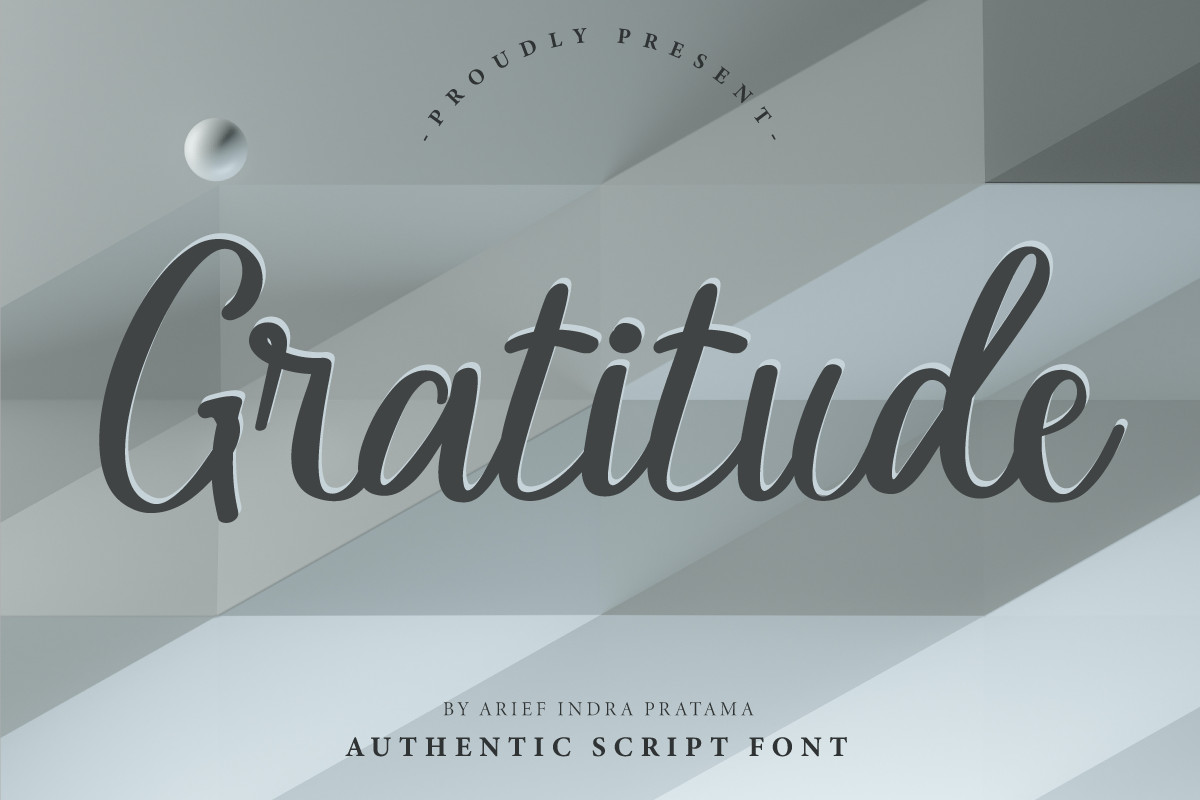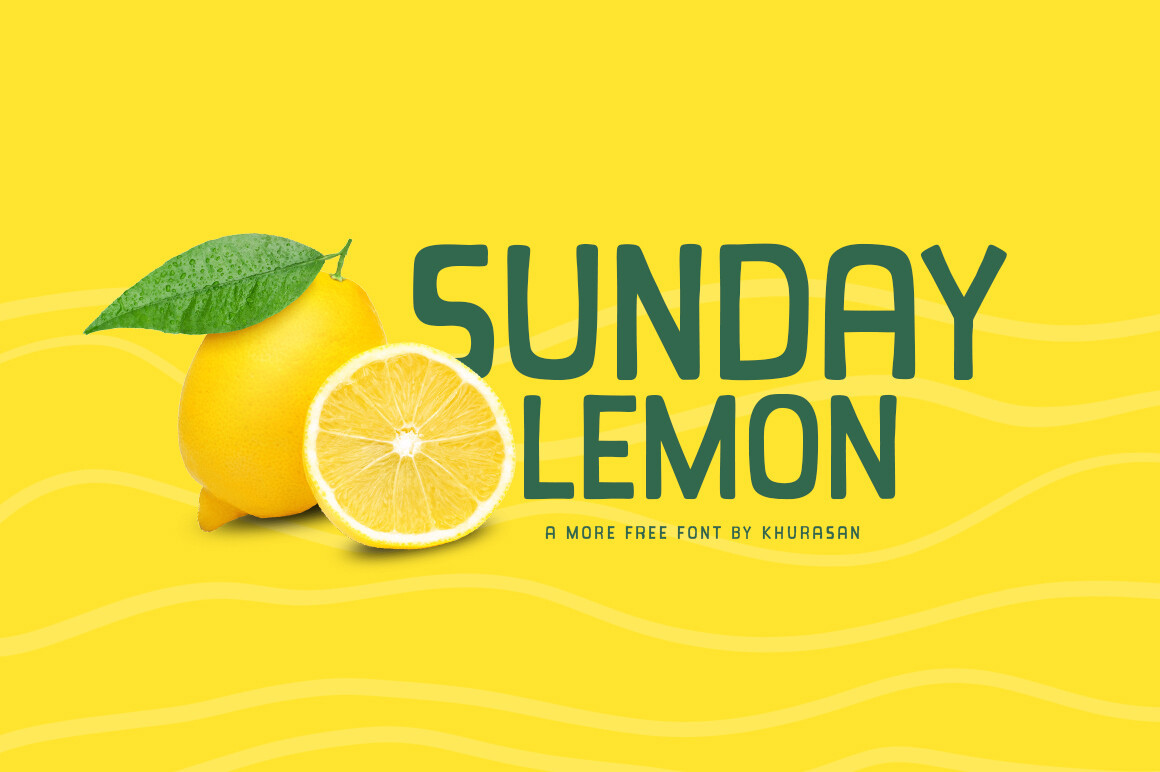
Free Fonts for September 2023
It's been a while since we put together a collection of free commercial use fonts, and it seemed like it was time.
Farmhouse
The Farmhouse font is a charming handwritten style that exudes a sense of playfulness and authenticity. It's a versatile choice for a wide range of creative projects, such as blog posts, logos, branding, ads, invitations, greeting cards, planners, photo albums, decorations, and more. Incorporating this font into your designs can enhance their appeal and bring about delightful results.
Sunday Lemon
Sunday Lemon is a modern and cute display font ideal for a variety of projects like posters, logos, magazines, book covers, and banners. Use it to enhance your designs and watch them stand out.
Gratitude
Gratitude is an authentic script font perfect for wall displays, invitations, logos, ads, packaging, labels, and more demanding typography projects.
Monday Donuts
A modern, cute handwritten font for posters, logos, magazines, and more. Elevate your designs and watch them shine with this versatile font.
Toddler Writing
A modern, cute handwritten font for posters, logos, and more. Elevate your creative projects with this versatile font.
Monday Coffee
A modern and charming display font ideal for various design projects, including posters, logos, magazines, and more. Elevate your creative ideas with this versatile font and see them shine.